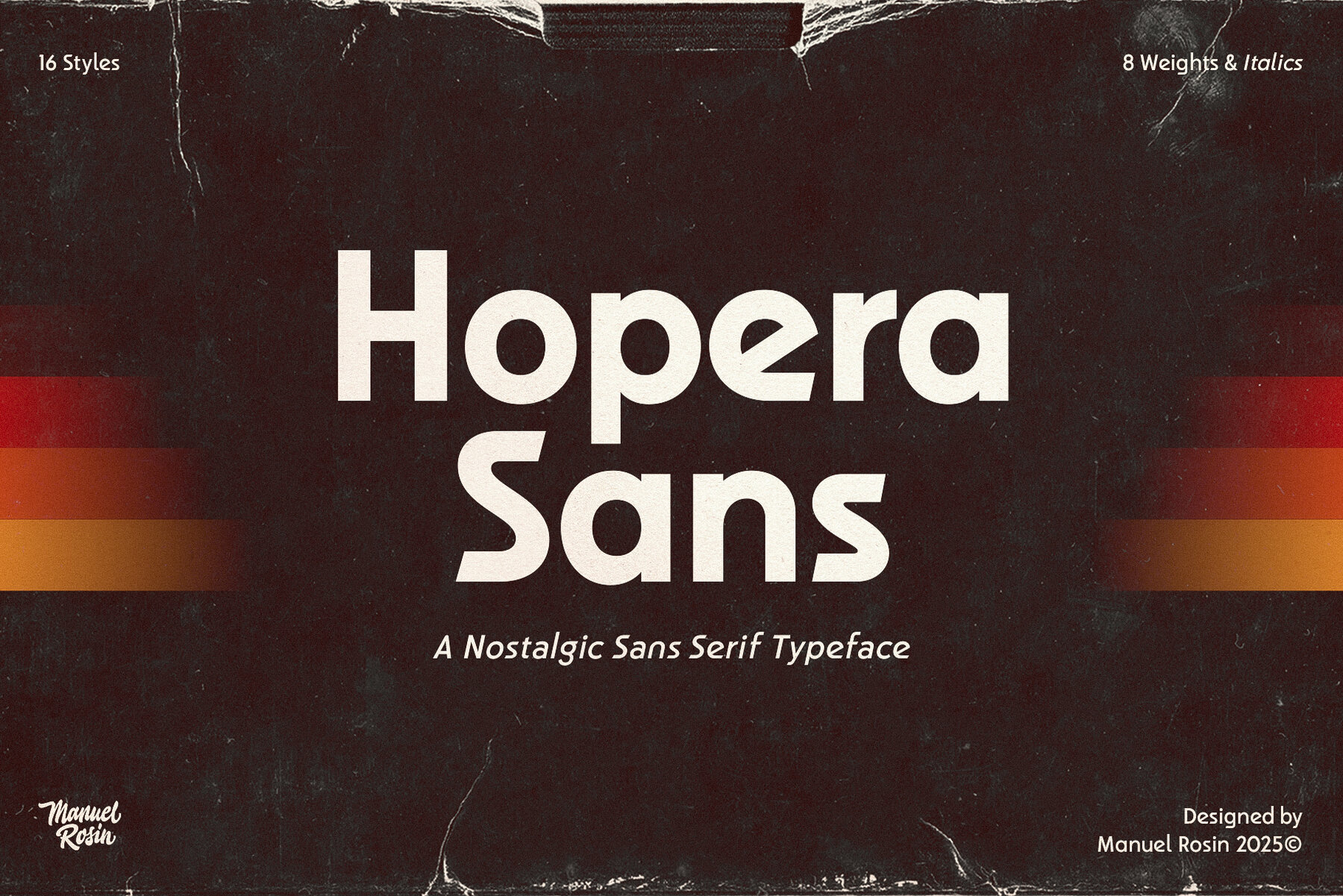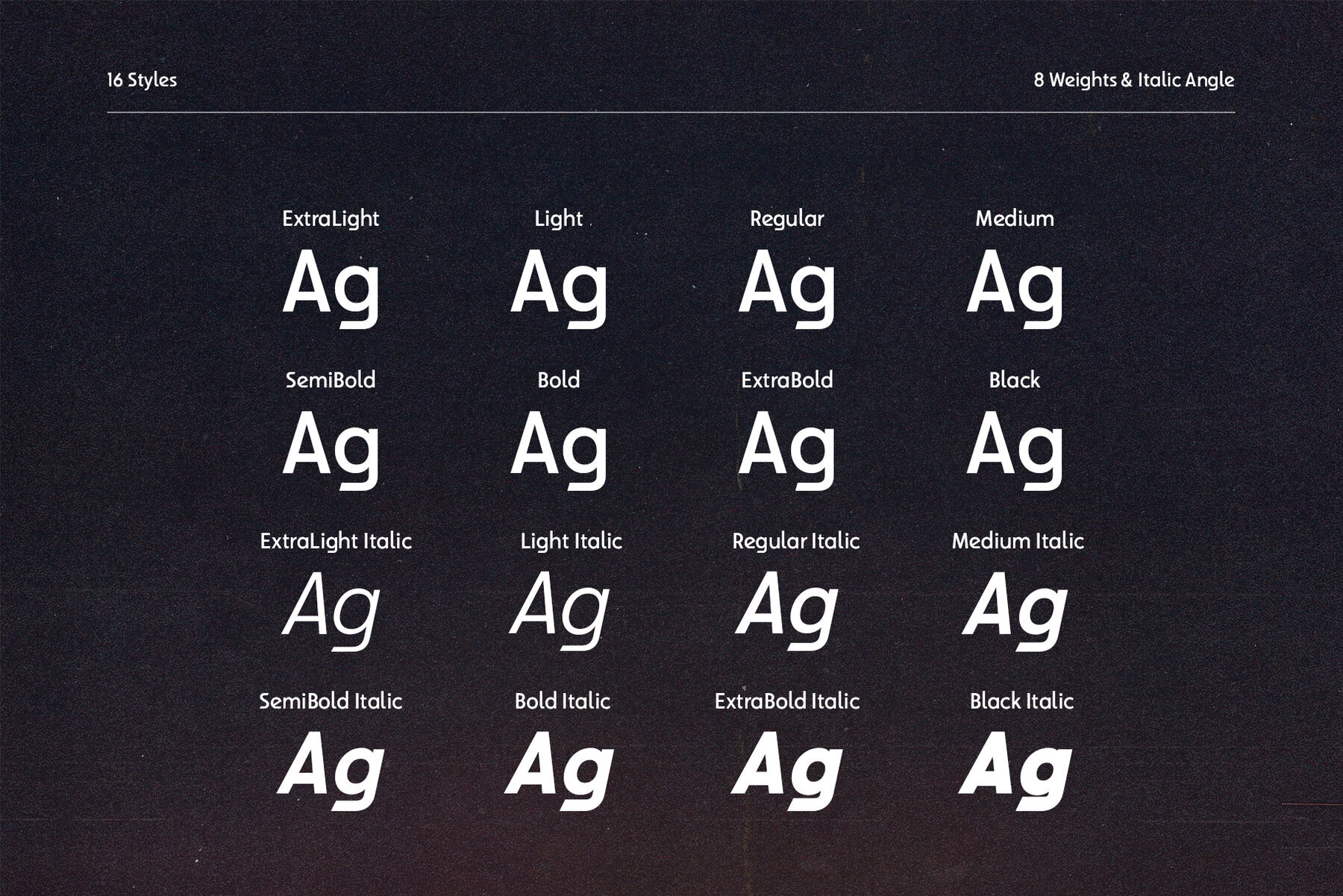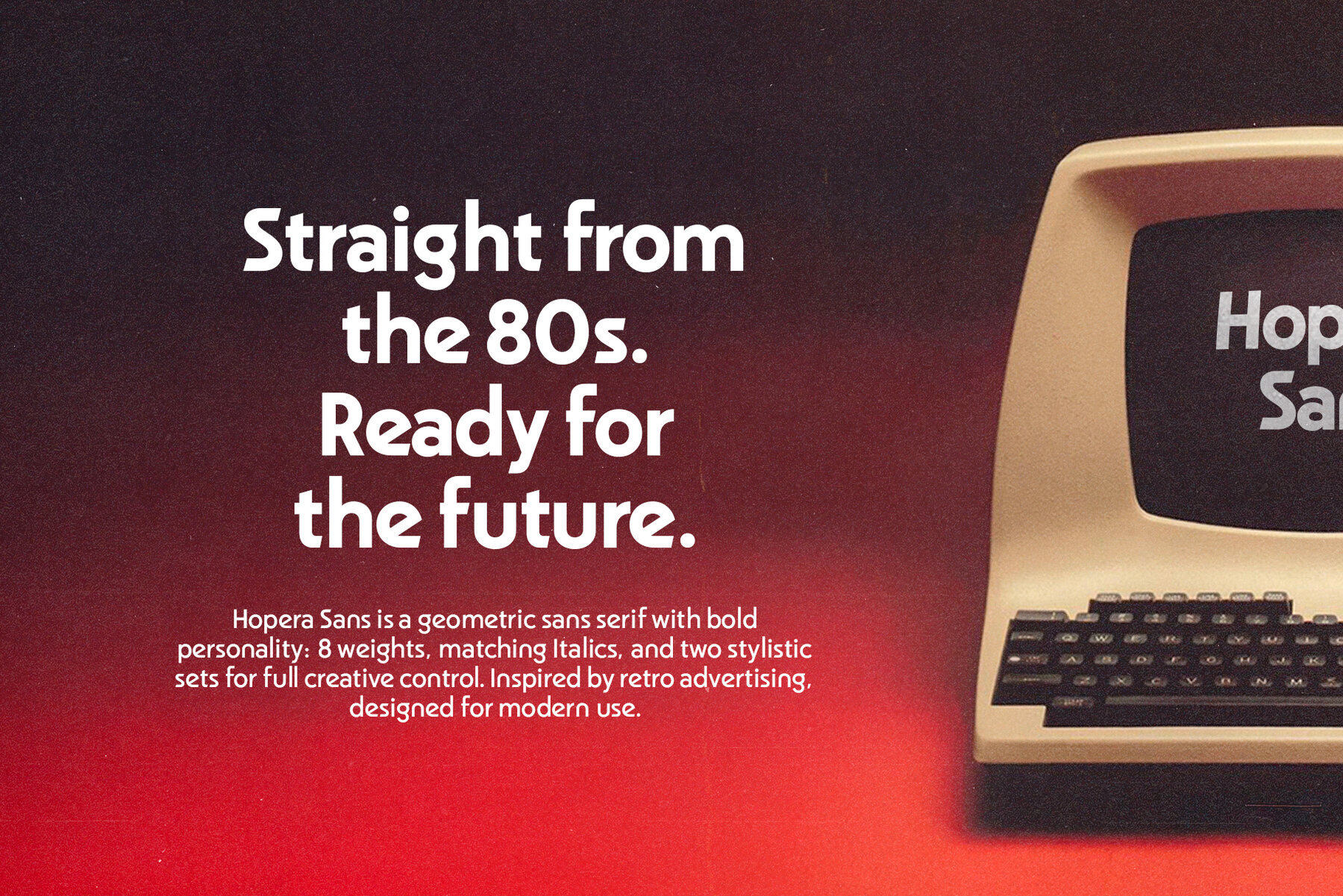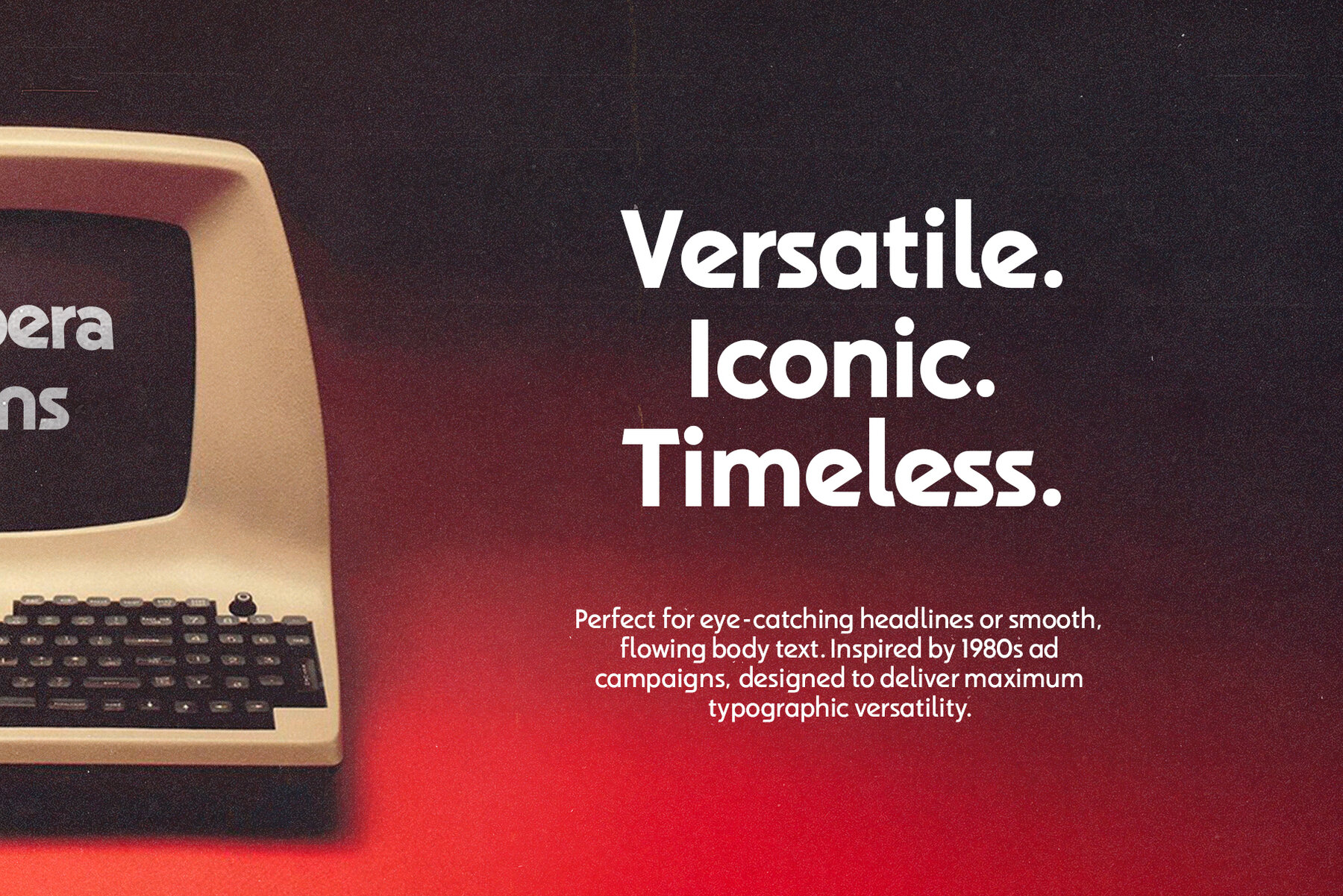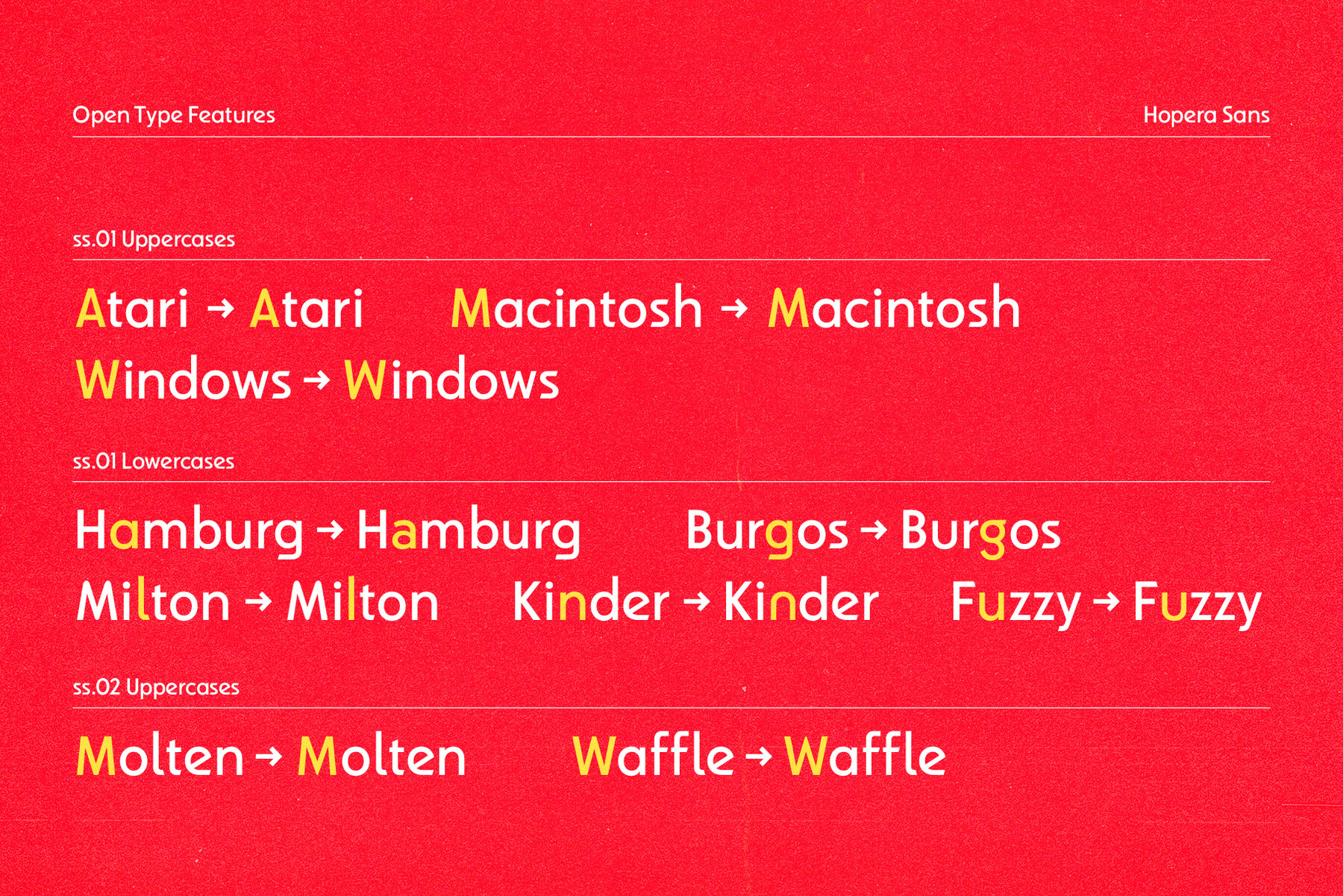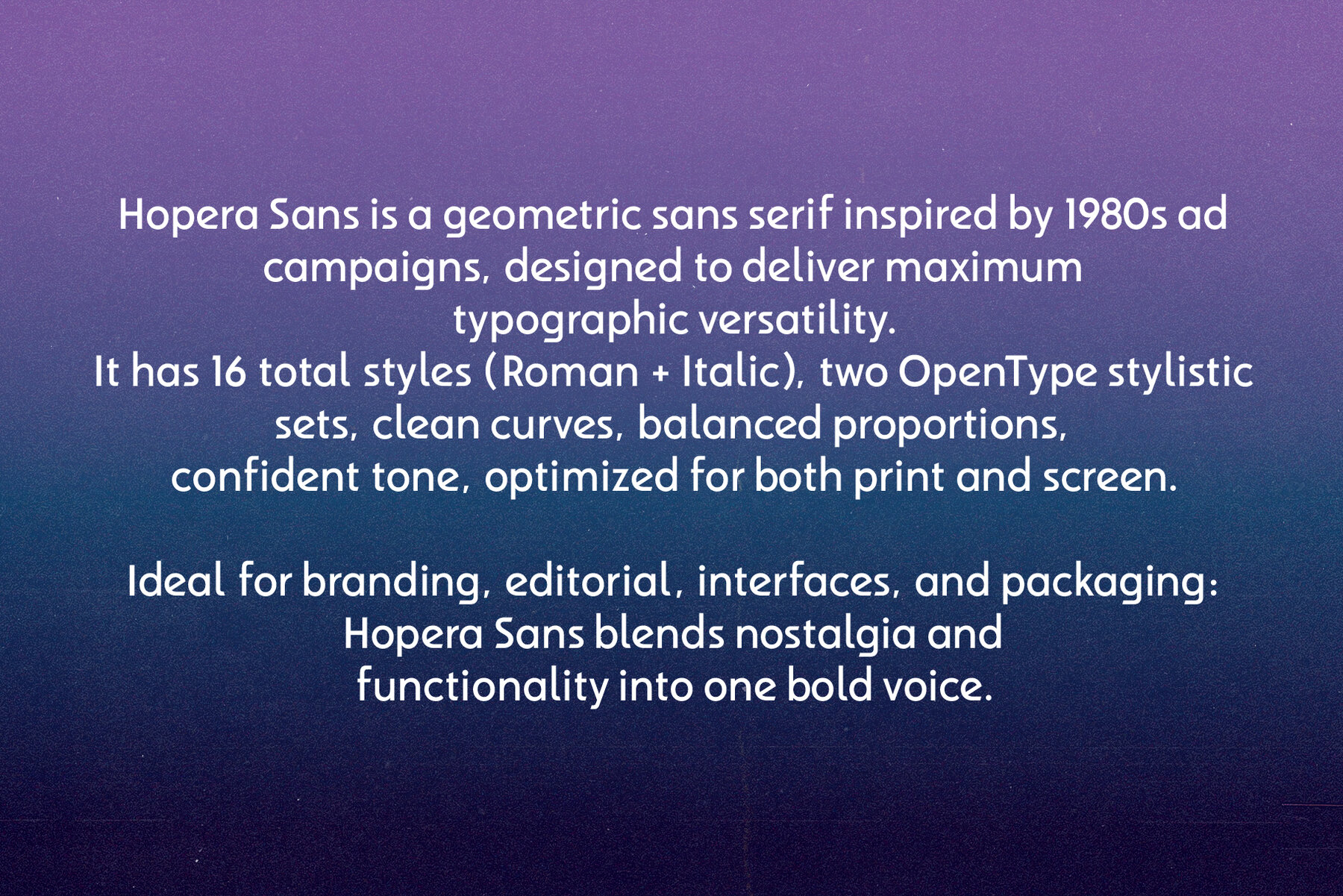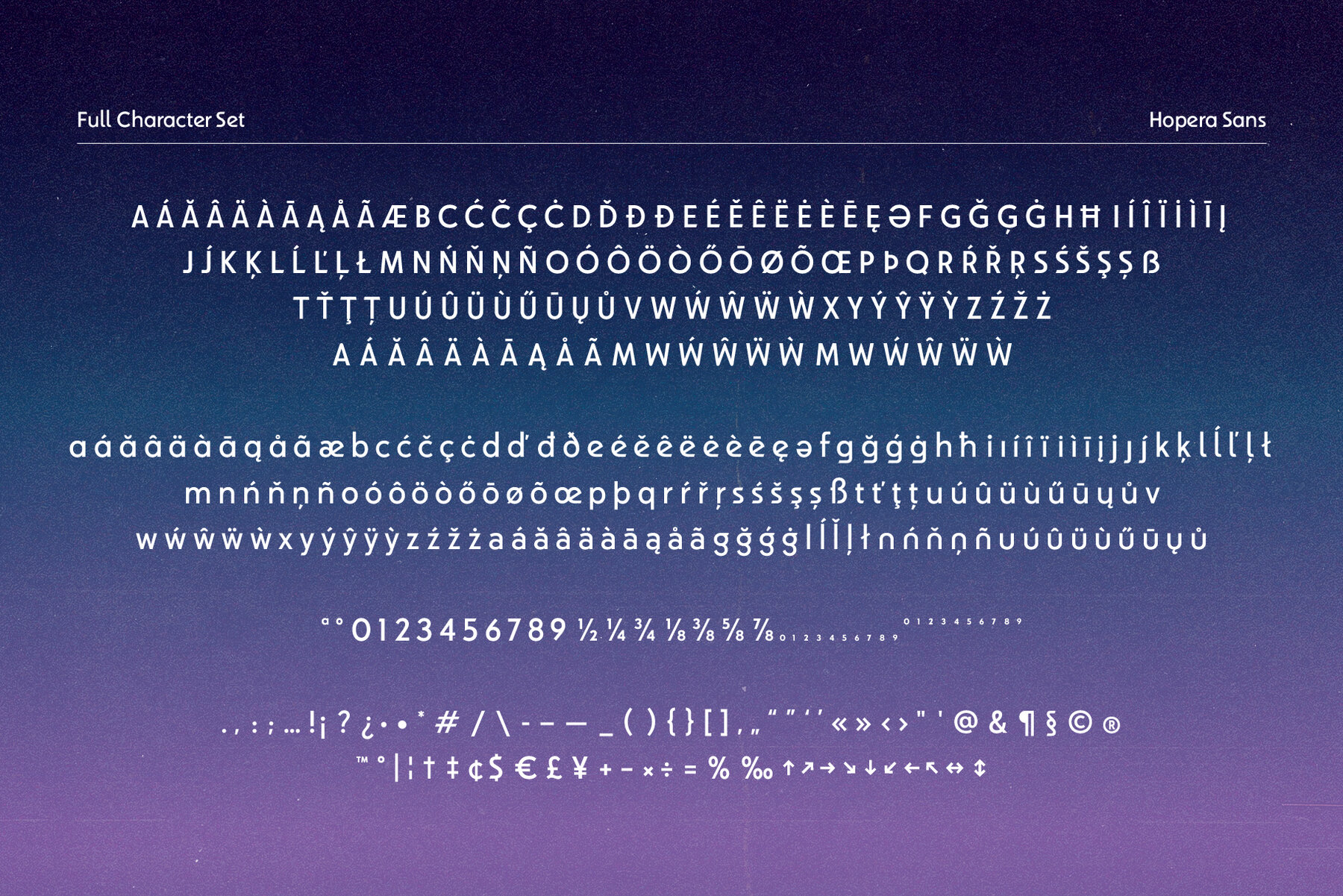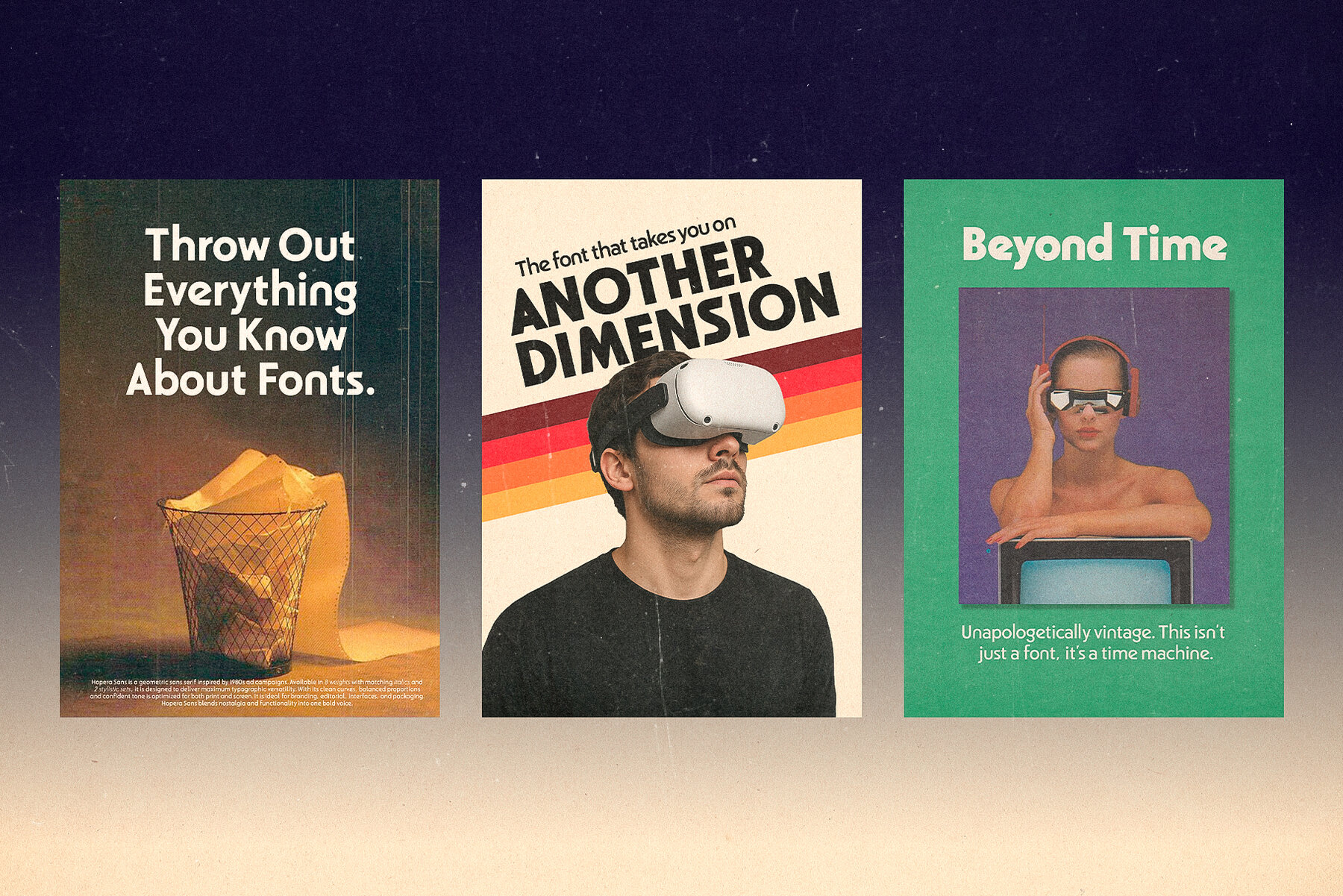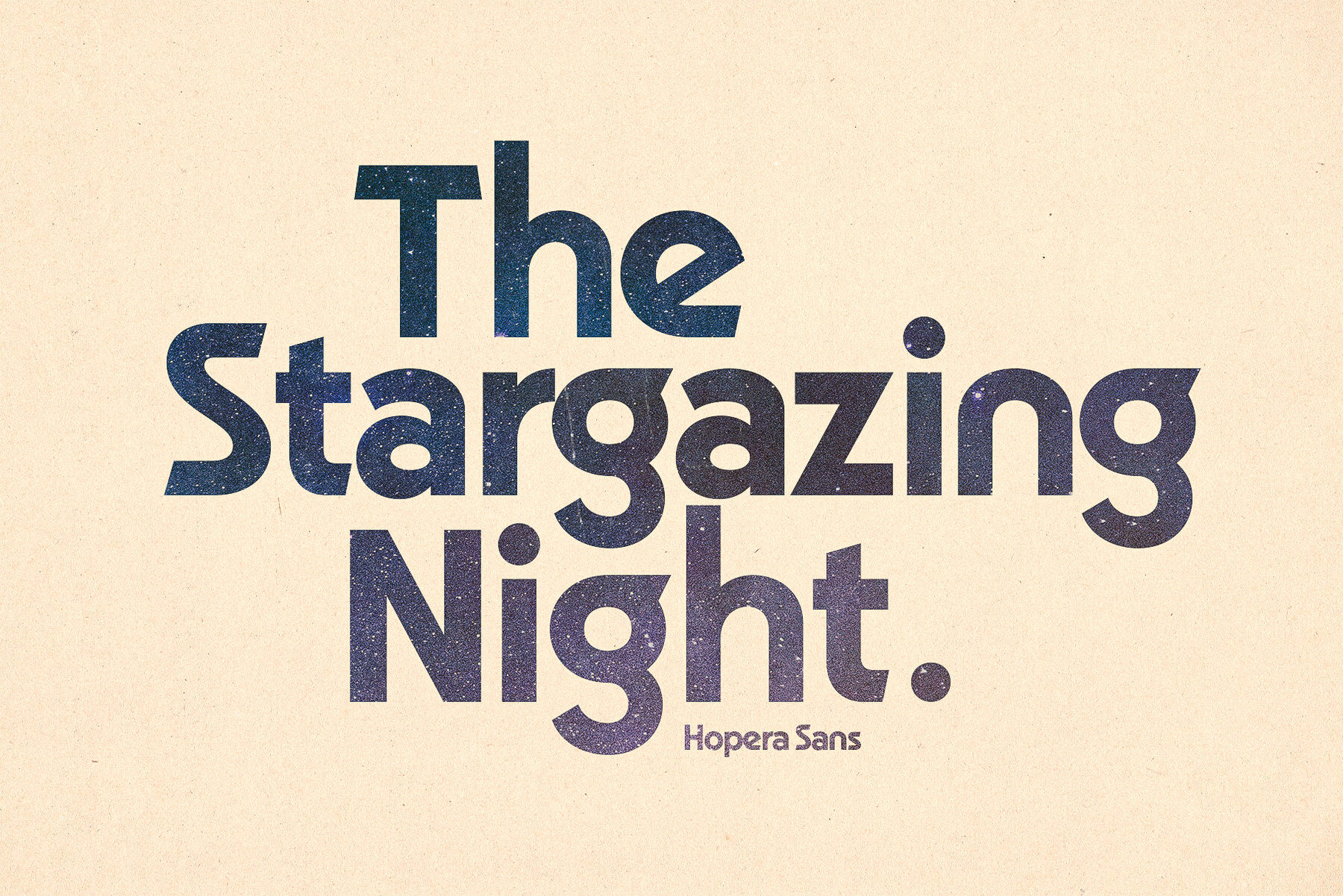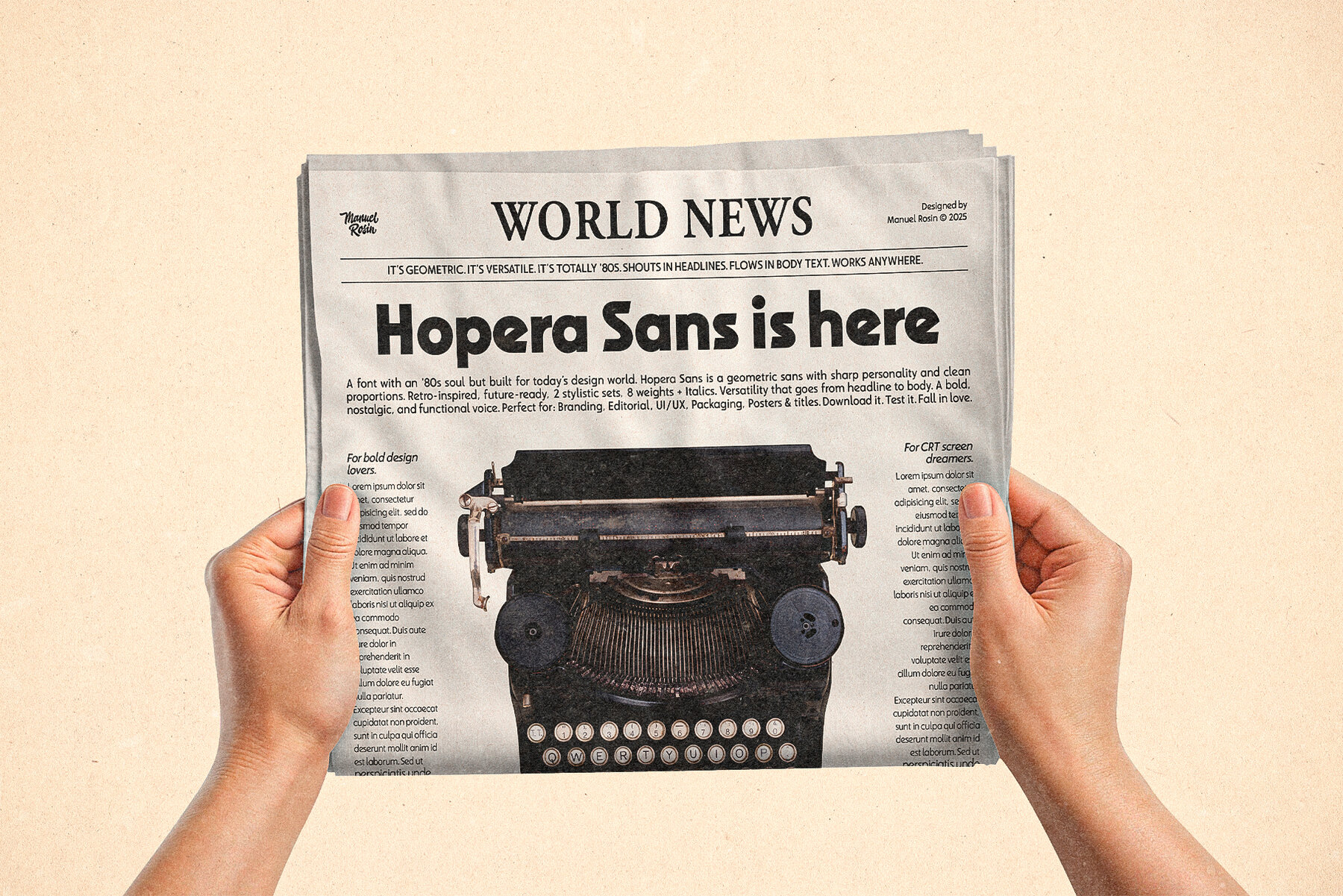
Hopera Sans Font
Drawing inspiration from the bold visual language of 1980s advertising, Hopera Sans is a geometric sans serif typeface that marries typographic precision with strong visual character. It features eight weights, each with complementary italics, and offers two alternate stylistic sets. This versatile typeface is ideal for both impactful headlines and extended body copy. With its clean forms, balanced construction, and retro edge, Hopera Sans is perfectly suited for use in branding, editorial design, packaging, and digital interfaces. Hopera Sans is meticulously crafted for optimal performance on both print and screen, offering full Latin support. Its subtle design details pay homage to the past, while ensuring modern functionality. This font doesn't merely follow trends—it defines them.Hopera Sans: A Geometric Typeface with 1980s Flair